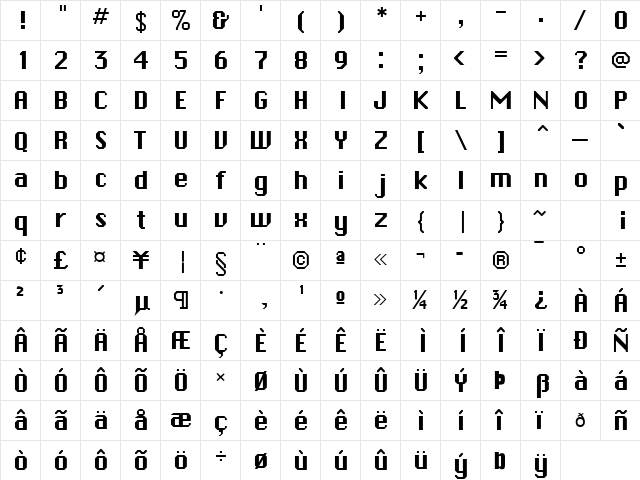
Ambush Normal Font Preview
Ambush Normal
Design Context for Ambush Typeface
Ambush takes a measured approach to typography — its balanced proportions and neutral character make it a reliable workhorse for both digital and print work.